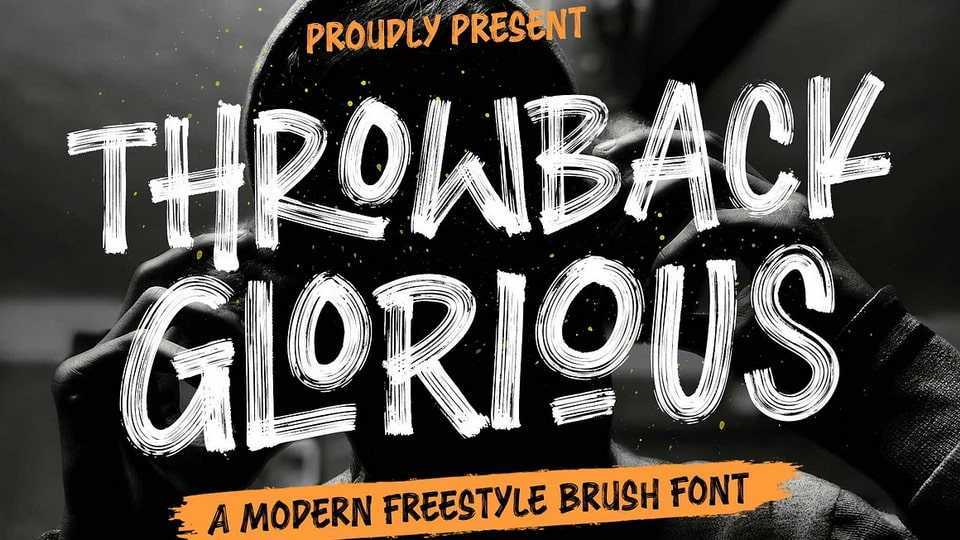
Download Throwback Glorious font, a raw and expressive handwritten typeface crafted with dry brush strokes and rich textures. Bold and unapologetic, Throwback Glorious speaks louder than words.